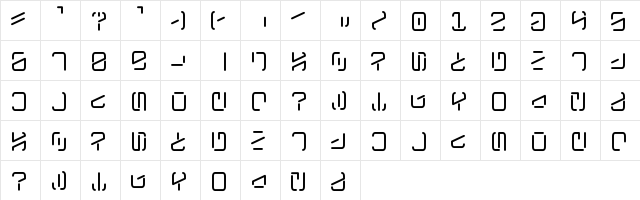
KyberCrystalDisplay Aurebesh Font Preview
KyberCrystalDisplay Aurebesh
Design Context for KyberCrystalDisplay Typeface
KyberCrystalDisplay brings ornamental detail and strong personality to headlines and identities, where visual impact matters more than quiet functionality.
Font Pairing: Pair with a clean neutral sans-serif for body copy to let KyberCrystalDisplay's character lead without overwhelming the composition.
Pro Tip: Use KyberCrystalDisplay exclusively at display sizes — it was designed to be seen, not read at length. Let a neutral companion handle body copy.